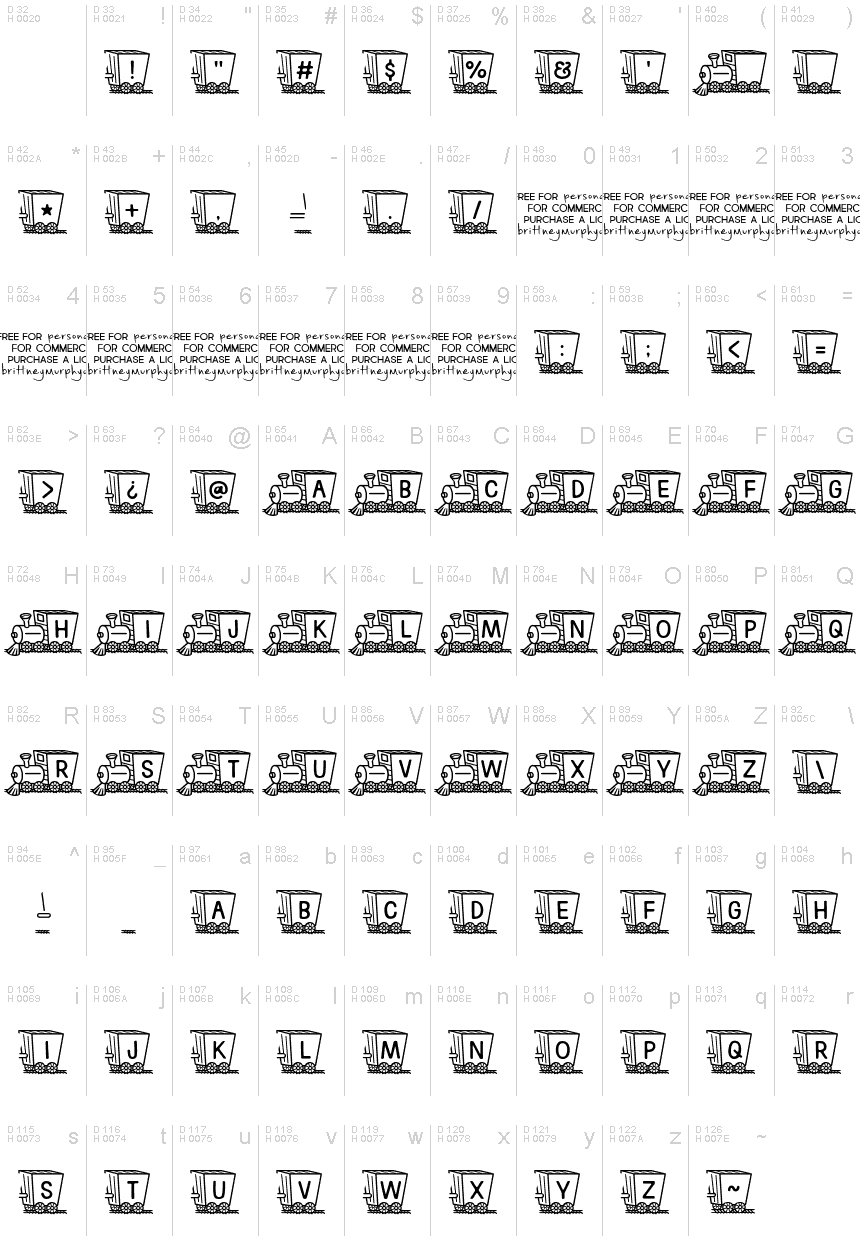
Train Letters Demo
Train Letters Font by Brittney Murphy Design is a delightful display font that adds a touch of whimsy to any project. With its decorative style, it brings sentences to life with charming trains. The uppercase letters are placed on train engines, while lowercase letters adorn the train cars. Simply begin your sentence with an uppercase letter to start the train and use lowercase letters to complete it. To separate words, you can creatively incorporate a dash in the middle.
Perfect for children's books, playful invitations, and imaginative designs.
Let Train Letters Font take your projects on an adorable journey!
Special Characters
Dash (-) = Word Connector (Mid-train Space)
Left Parenthesis ( = A Blank Engine
Right Parenthesis ) = A Blank Car
Circumflex (^) (6 + Shift) = the front of a train car
Underscore (_) = Blank Railroad